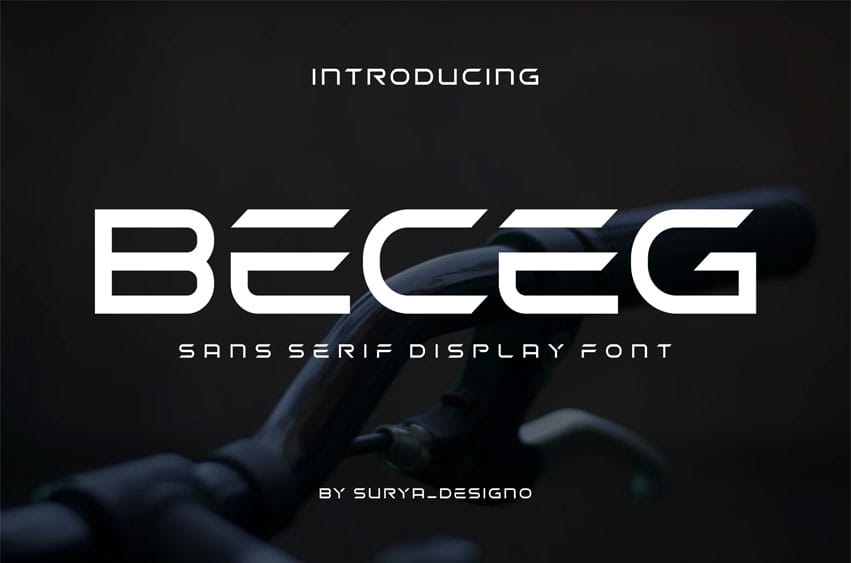
Beceg Font Modern Font is a bold and authentic display font. The font is suitable for any branding project like logo, t-shirt printing, esport, and many more. outstanding in a wide range of contexts.